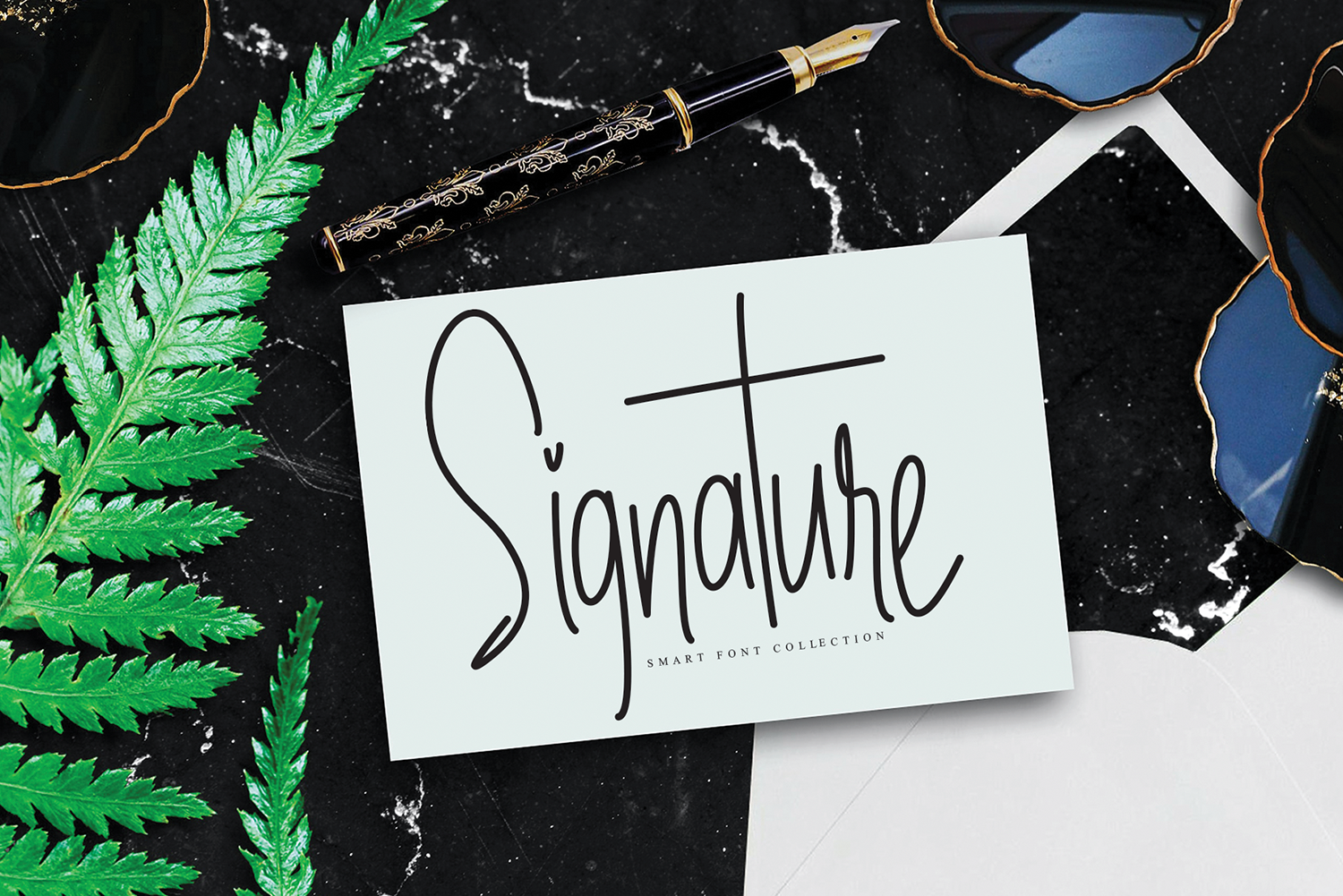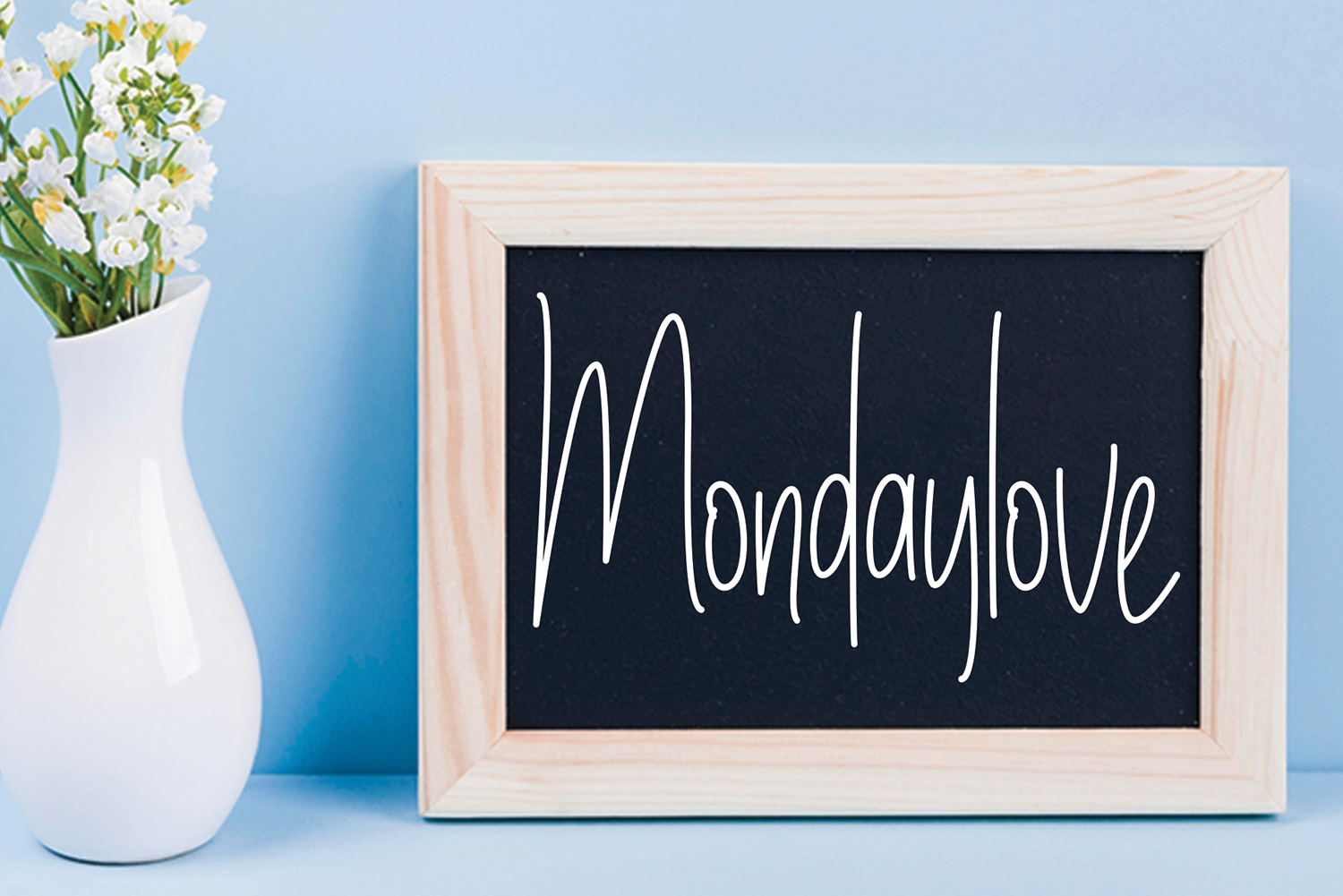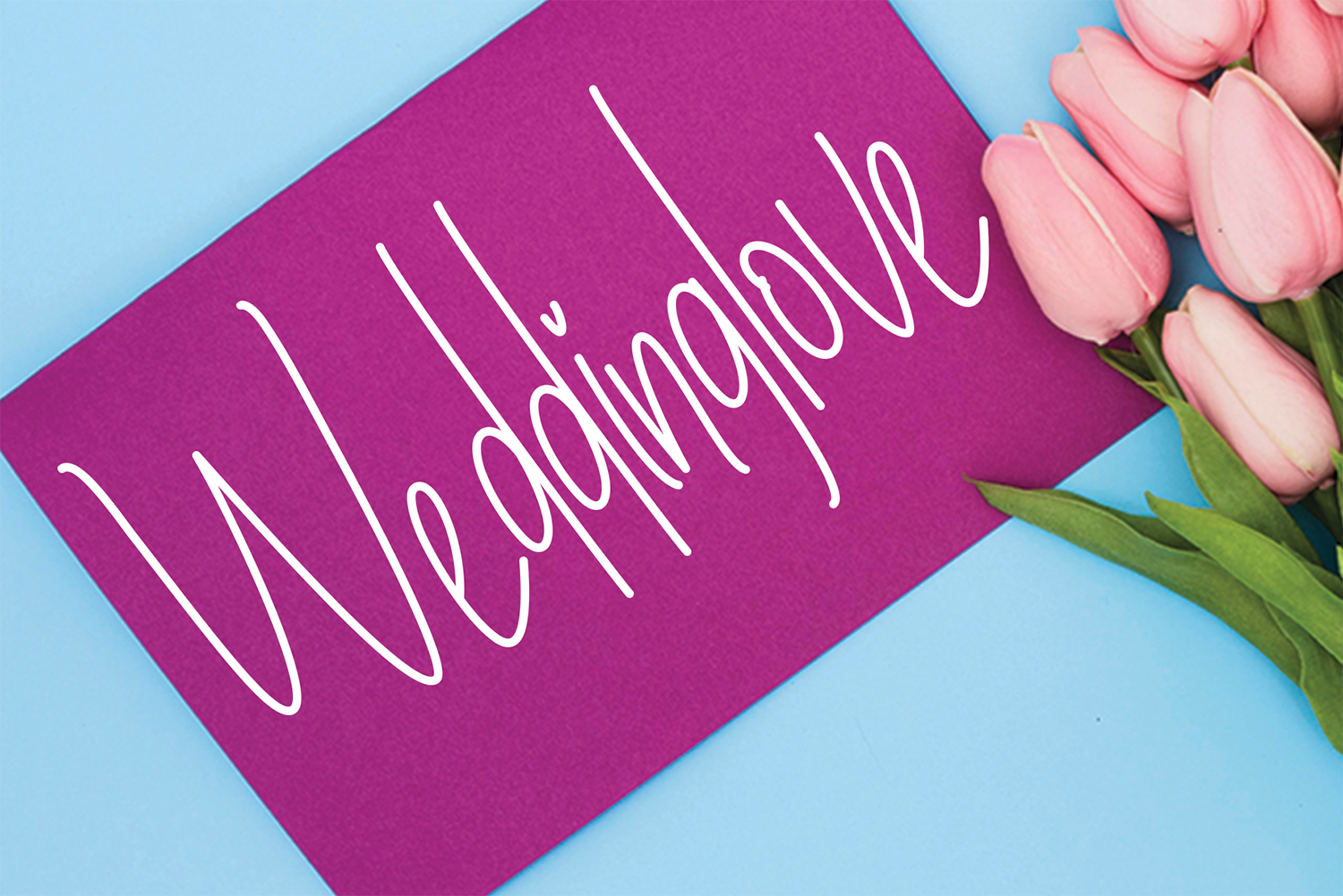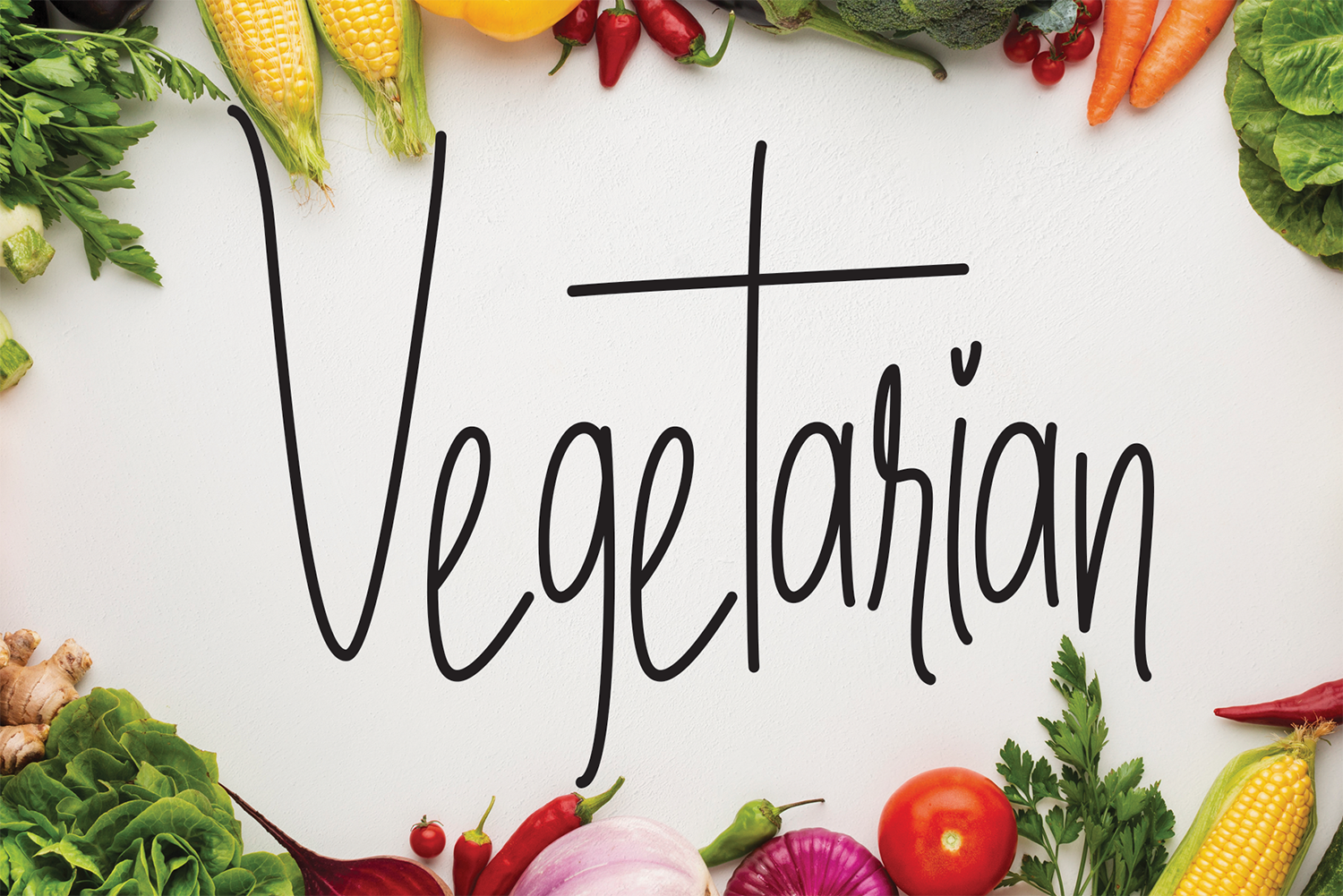
Creativenottes Free Font
Experience the allure of Creativenottes Free Font, a slender and uniquely crafted handwritten font adorned with charming and intricate swashes. Its distinctive elegance captures a broad spectrum of creative concepts, from captivating letterheads and engaging titles to exquisite stationery designs. Unveil a world of originality and finesse through this font, embracing its delicate appeal to enrich your creative endeavors. This free typeface was designed by a talented Scratchones Creative. If you like it don’t forget to check out the full version.